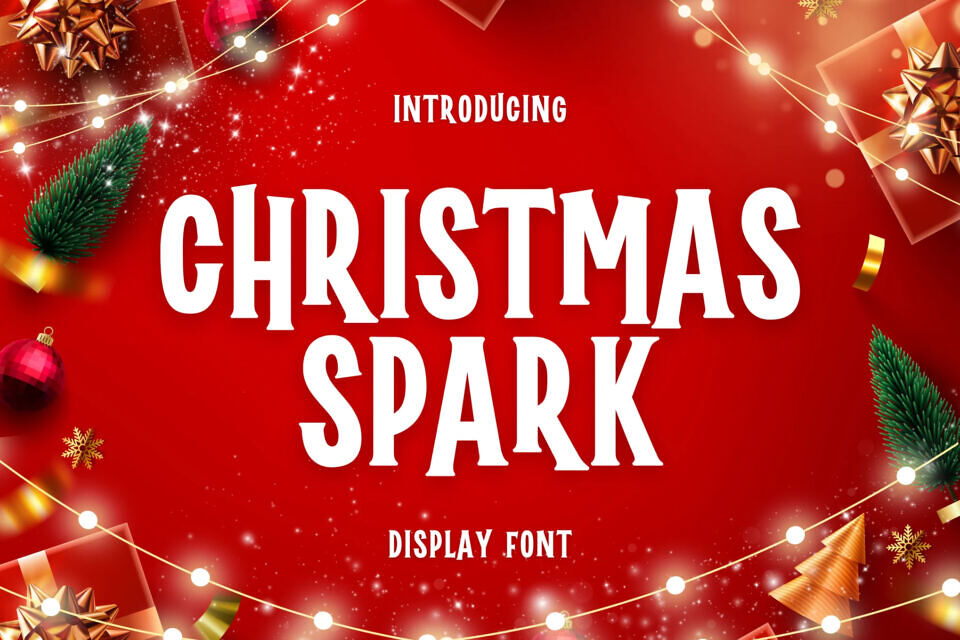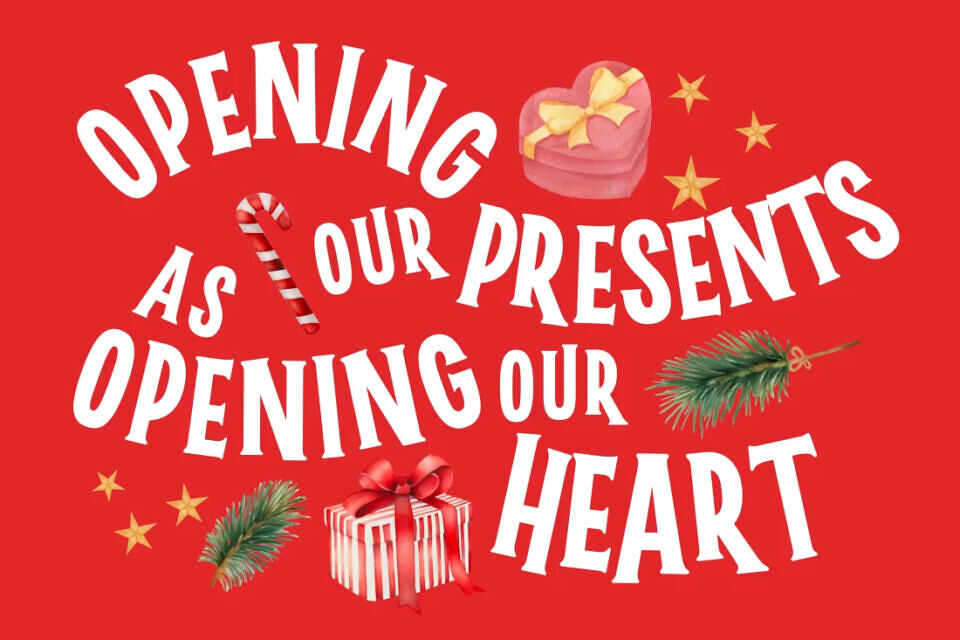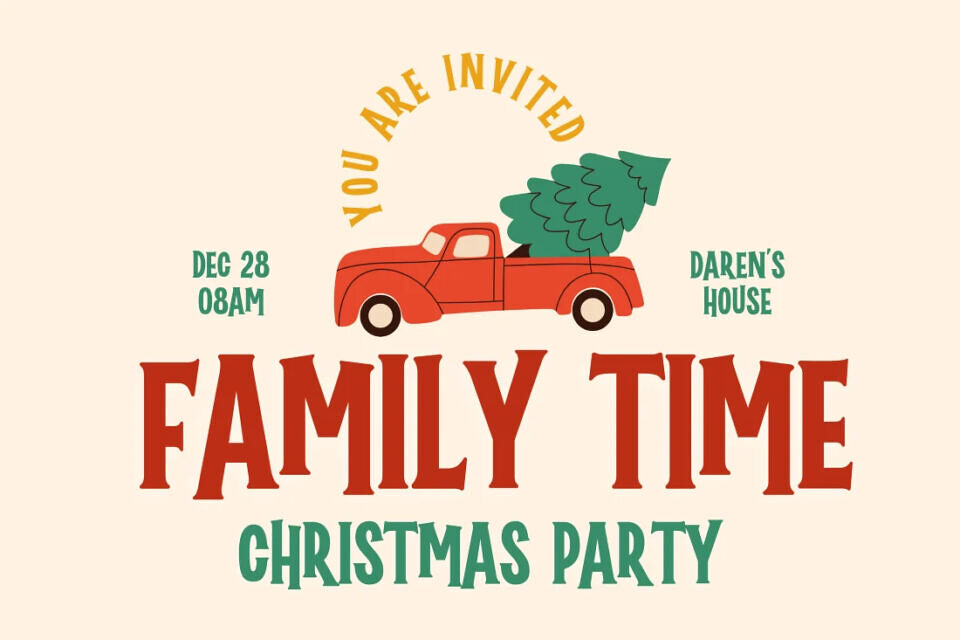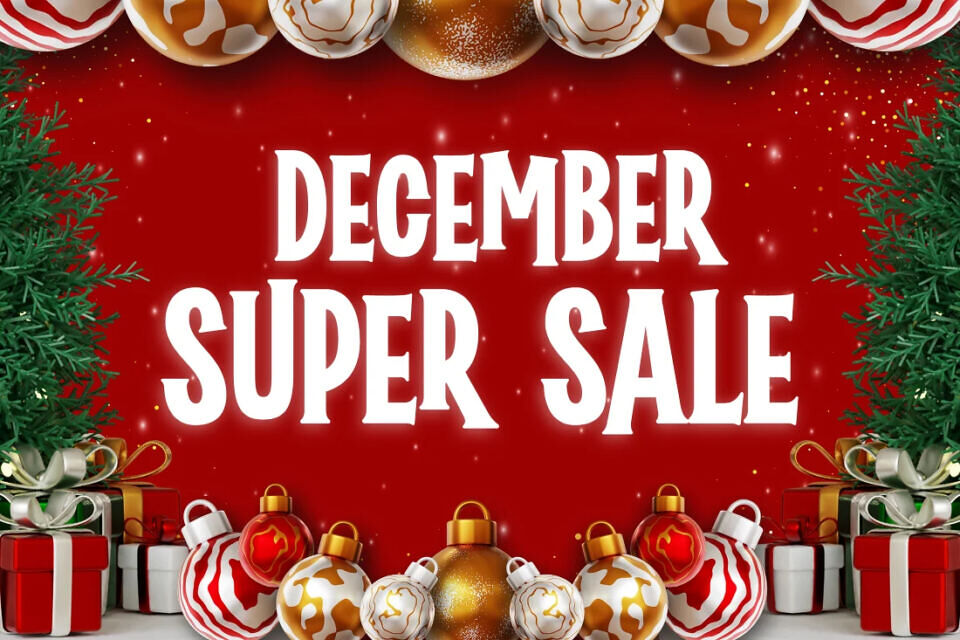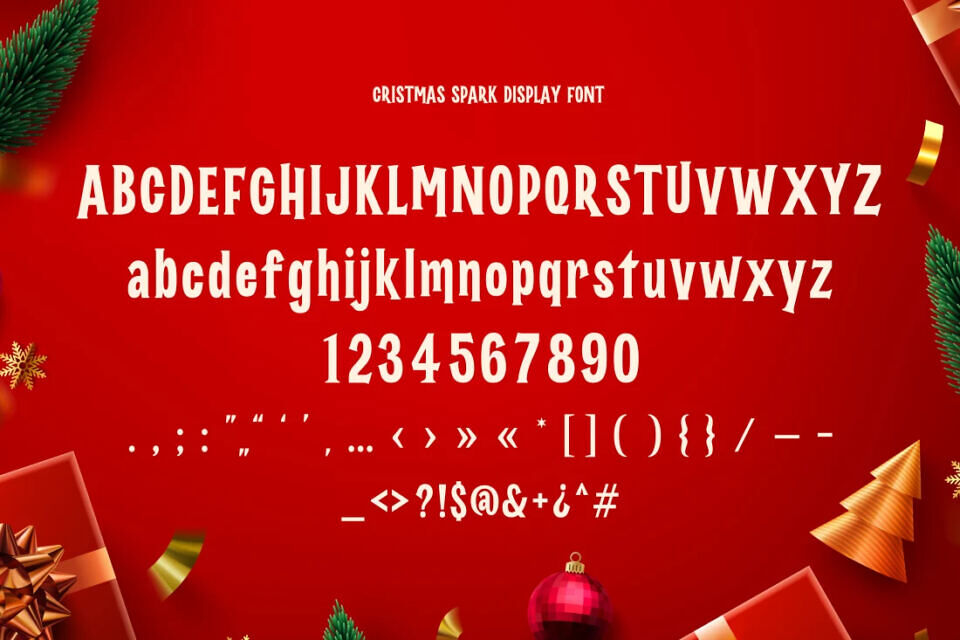
Introducing “Christmas Spark” Display Font – the perfect typographic embodiment of the festive spirit! This font is designed to infuse your holiday designs with the warmth and energy of Christmas and the New Year.
With each character, “Christmas Spark” radiates new beginnings and nostalgia simultaneously, making it ideal for both contemporary and classic-themed designs. Whether you’re crafting holiday greetings, digital cards, or promotional materials, this font will infuse your work with an irresistible festive glow.